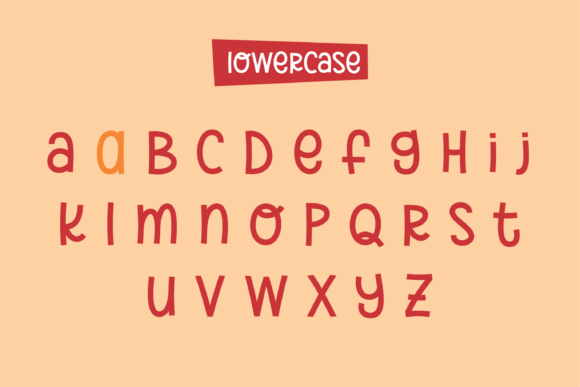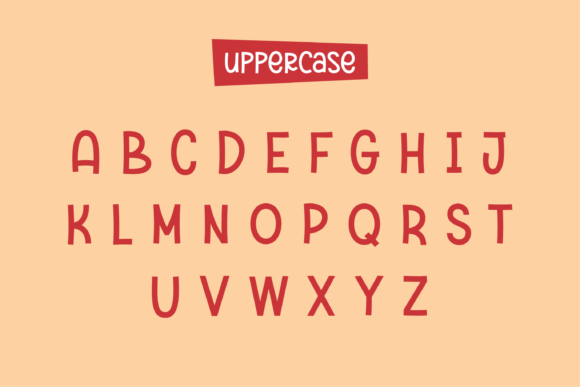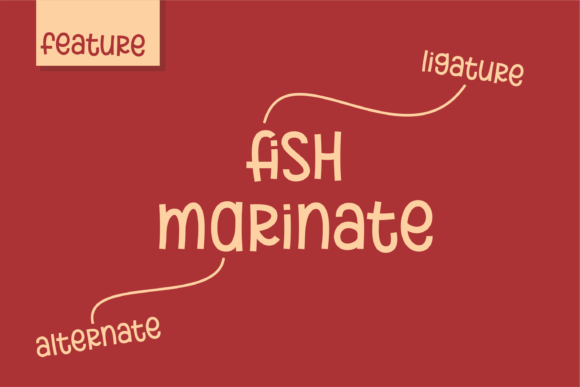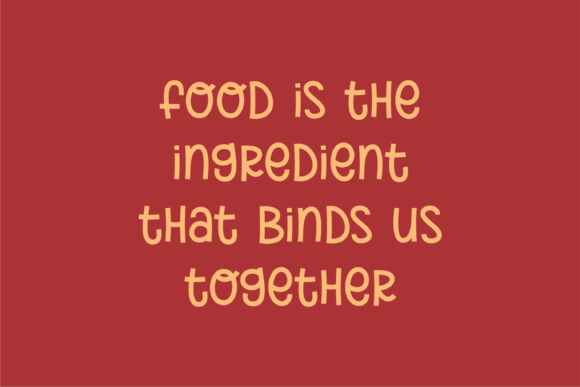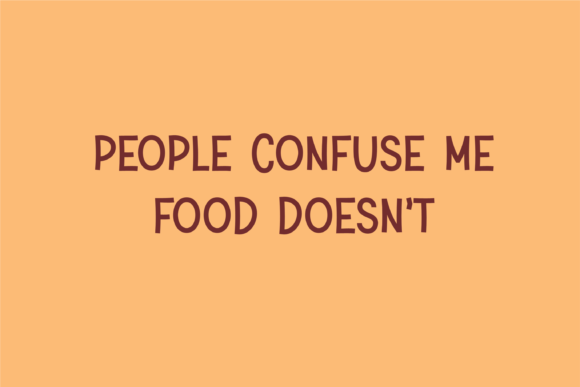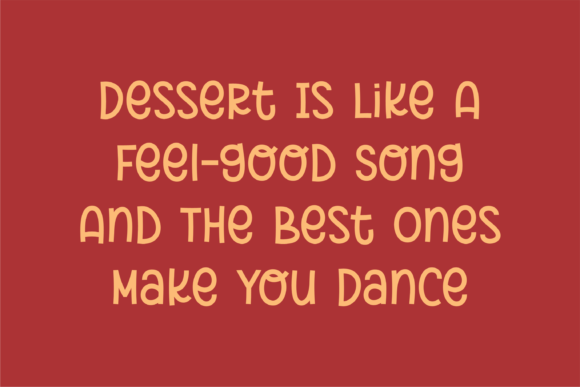
Introduction to Chicken Broth Font
Do you remember that magical moment when you stumbled upon the perfect font for your creative project? The one that instantly elevated your design from ordinary to extraordinary? For many designers, that moment is what makes all the hard work worth it. And for those who love creating fun and playful content, the Chicken Broth Font is about to become that game-changing discovery.
With its high-quality design and free download option, the Chicken Broth Font is a valuable resource for any designer looking to add a touch of whimsy to their work. Whether you’re designing a children’s game, a cartoon-inspired poster, or simply a social media graphic, this friendly font is sure to bring a smile to your audience’s face. And with its transparent background option, you can easily incorporate it into your design without worrying about distractions.
As a design resource, the Chicken Broth Font is a must-have for any creative project that requires a high-quality, free font with a transparent background. Its versatility and friendliness make it an ideal choice for designers who want to add a touch of personality to their work.
Key Features of Chicken Broth Font
- High-quality design with a unique and creative style, making it a great resource for various projects.
- Features a transparent background, providing a clean and versatile design element for any creative project.
- Includes a range of characters, including uppercase and lowercase letters, numbers, and punctuation marks, making it a well-rounded design resource.
- Designed with a high resolution (up to 1024×1024 pixels), ensuring crisp and clear typography in various design applications.
- Perfect for use in digital and print projects, including logos, branding materials, and editorial content, due to its unique and stylish design.
Honest Review: Chicken Broth Font
I recently stumbled upon the Chicken Broth Font, and I must say it’s a delightful addition to any design project. The font is available for a free download, making it an excellent resource for designers on a budget. One of the standout features of this font is its high quality and crisp typography.
- ✨ High quality and crisp typography
- ✨ Aesthetic appeal, suitable for creative projects
- ✨ Compatible with various design software and applications
One thing that I wish the font had was more customization options. At times, the design feels a bit restrictive, which can be limiting for designers who want to push the boundaries of their creative project.
- ⚠️ Limited customization options
- ⚠️ No transparent background option, which can make it difficult to use in certain design scenarios
Overall, the Chicken Broth Font is a solid addition to any design resource library. While it may not be perfect, its high quality and free download make it a valuable asset for designers working on creative projects.
In Adobe Photoshop and Illustrator, you can use the Chicken Broth Font as a vector graphic or a raster image. Use the font to create custom text elements or to add a decorative touch to your designs. The font’s transparent background makes it easy to layer over other design elements.
To use the Chicken Broth Font in PowerPoint or Word, simply select the font from the font library and apply it to your text elements. The font’s unique style adds a creative touch to your presentations and documents.
Experiment with different font sizes and styles to create a visually appealing design. Use the font in combination with other design elements, such as images and shapes, to add depth and interest to your design.
The Chicken Broth Font is perfect for a variety of creative projects, including branding, marketing materials, and digital art. Its unique style and high quality make it a valuable design resource for designers and artists of all levels.